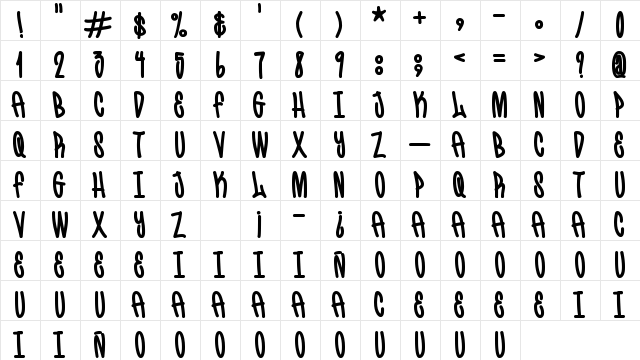
LoreLore Regular
| Designer | Beraka Fonts |
Design Context for LoreLore Typeface
LoreLore is a composed and adaptable typeface that performs quietly and consistently across a wide range of design contexts.